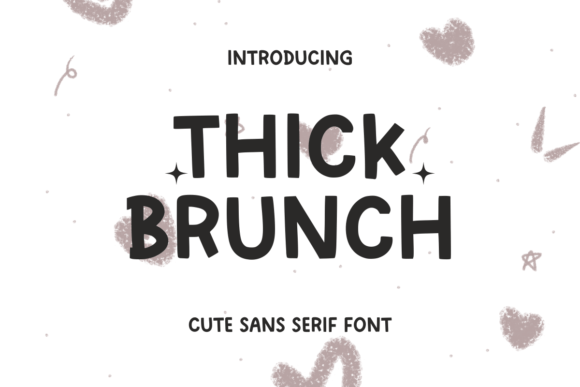
Thick Brunch: A Playful Sans Serif for Bold Design
If you are looking to inject some personality into your latest creative project, Thick Brunch might be the perfect typeface. This quirky sans-serif font infuses designs with playful eccentricity, offering a distinctive aesthetic that stands out in a crowded digital landscape. For designers seeking a unique voice, the option to download Thick Brunch font free for personal evaluation is a great starting point. Unlike standard geometric or humanist options, Thick Brunch features unconventional letterforms and lively strokes that create an offbeat, memorable look. Whether you need a premium Sans Serif font for a client or a fun addition to your personal toolkit, understanding the nuances of this typeface is essential for effective design.
Introduction — What is Thick Brunch?
Thick Brunch is not just another entry in the vast library of free Sans Serif font for Fonts collections; it is a statement piece. It bridges the gap between professional clarity and artistic whimsy. The font’s name suggests something substantial yet enjoyable, and the visual weight delivers on that promise. When you perform a Thick Brunch font download, you are accessing a tool that challenges traditional typographic norms. Its irregularities are intentional, designed to catch the eye and evoke a sense of casual confidence. This makes it an ideal candidate for brands that want to appear approachable yet distinct.
Design & Style Analysis
The visual personality of Thick Brunch is defined by its bold presence and relaxed demeanor. It avoids the rigid structure of corporate typography, opting instead for a more organic feel.
Unique Letterforms
The character shapes in Thick Brunch are where its charm lies. You will notice slight variations in stroke width and terminal angles that give the font a hand-drawn quality without sacrificing legibility. These unconventional forms make it a standout choice for professional Fonts font projects that require a touch of humanity.
Weight and Spacing
As the name implies, the font carries significant visual weight. However, the spacing is carefully calibrated to prevent the text from feeling cramped. This balance ensures that even at larger sizes, the text remains readable and airy, a crucial factor when considering Thick Brunch for branding materials where clarity is paramount.
Best Uses for Thick Brunch
Because of its distinctive style, Thick Brunch is versatile but best suited for specific applications where personality is key.
Thick Brunch for Logo Design
A logo needs to be memorable, and the quirky nature of this font makes it excellent for Thick Brunch for logo design. It works particularly well for cafes, creative agencies, and lifestyle brands that want to convey friendliness and innovation.
Thick Brunch for Packaging
In retail, shelf appeal is everything. Using Thick Brunch for posters/social media/packaging can help products stand out. The bold strokes ensure that product names are visible from a distance, while the playful details invite closer inspection.
Thick Brunch for Wedding Invitations/Cards
While not a traditional script, this font adds a modern twist to formal events. Thick Brunch for wedding invitations/cards/typography offers a contemporary alternative to classic serifs, appealing to couples who want a non-traditional, chic aesthetic for their stationery.
Font Pairing & Combinations
One common question designers ask is, what fonts pair well with Thick Brunch? Because Thick Brunch is so dominant, it pairs best with neutral, clean typefaces that do not compete for attention.
For a balanced Thick Brunch font pairing, consider combining it with a light geometric sans-serif for body text. This creates a hierarchy where Thick Brunch handles the headlines and the partner font handles the detailed information. Alternatively, pairing it with a delicate serif can create an interesting contrast between the modern, bold headers and traditional, elegant body copy. Finding the best font combinations with Thick Brunch often involves testing high-contrast relationships to ensure readability and visual harmony.
Finally, remember that while it is a best Sans Serif fonts for use case scenarios involving headlines, it may not be suitable for long-form body text due to its decorative nature. Use it strategically to highlight key messages, and let simpler fonts handle the heavy lifting of information delivery. By respecting its strengths and limitations, you can leverage Thick Brunch to create designs that are not only visually striking but also functionally effective.